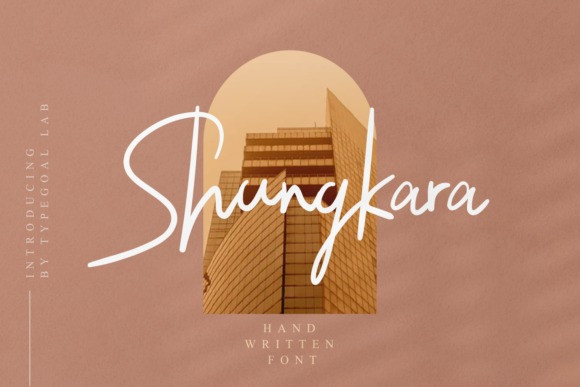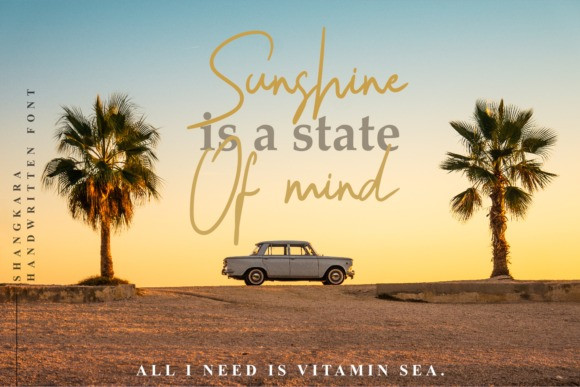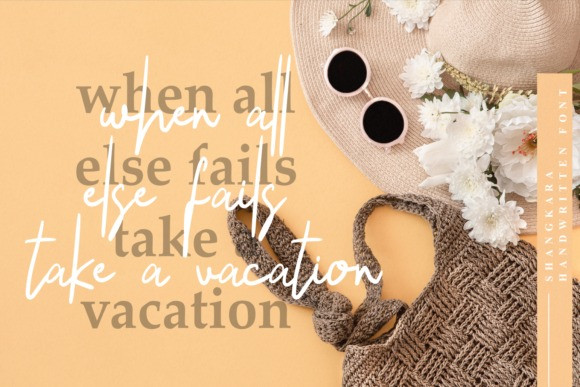
Shungkara Font
Shungkara is a stylish and incredibly elegant script font. It looks stunning on wedding invitations, thank you cards, quotes, greeting cards, logos, business cards and every other design which needs a handwritten touch.